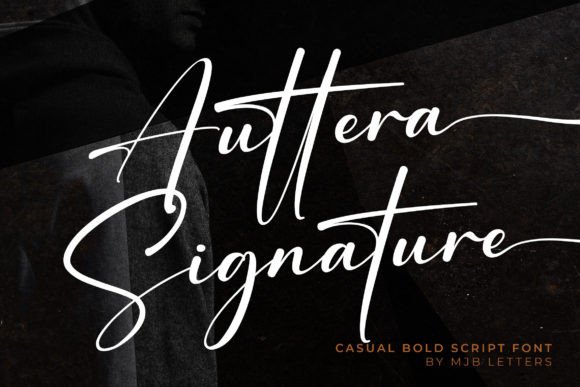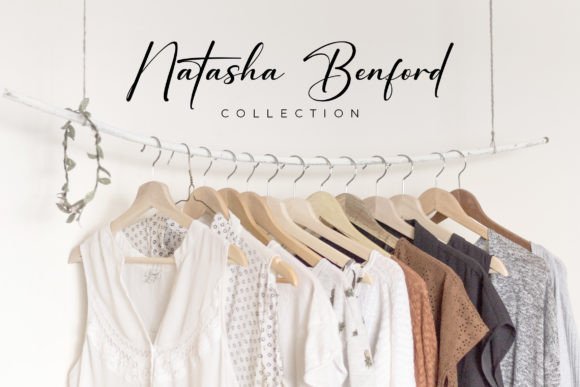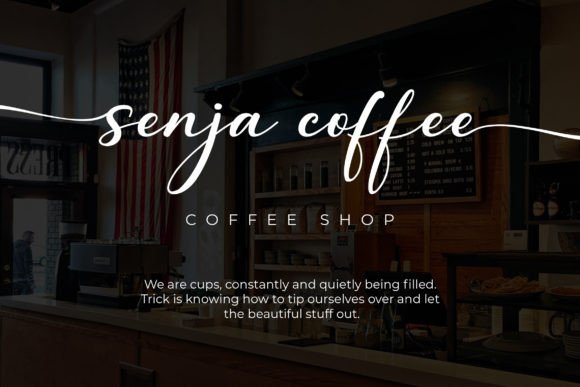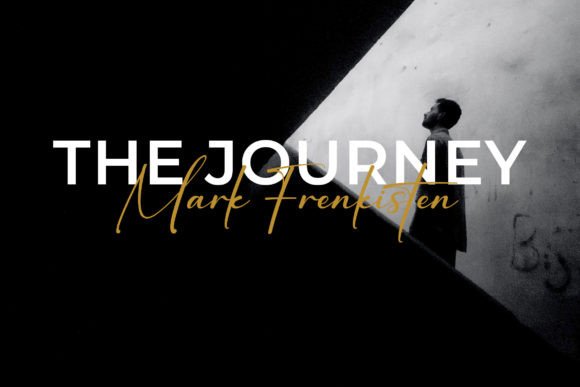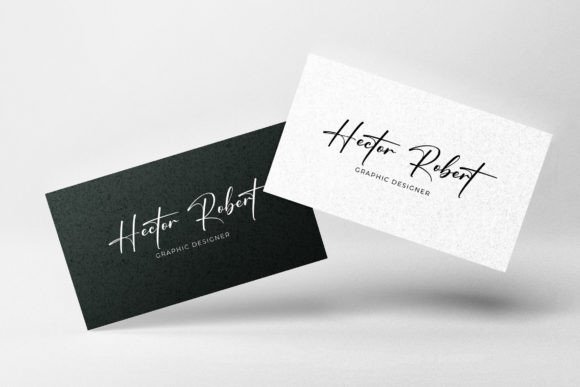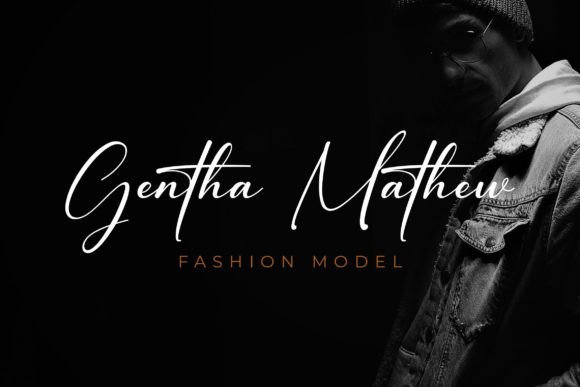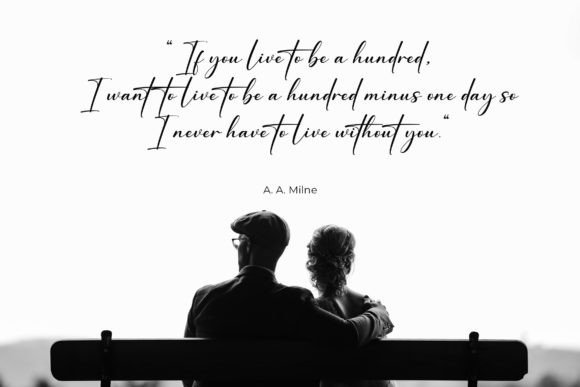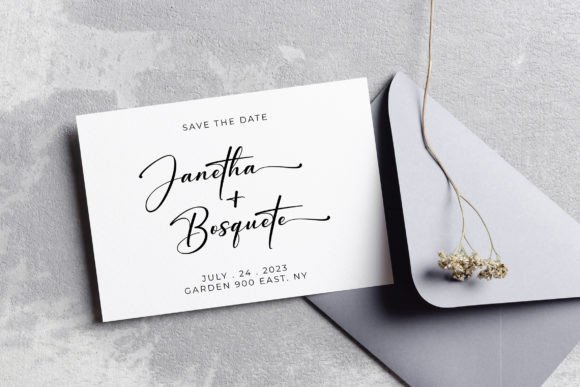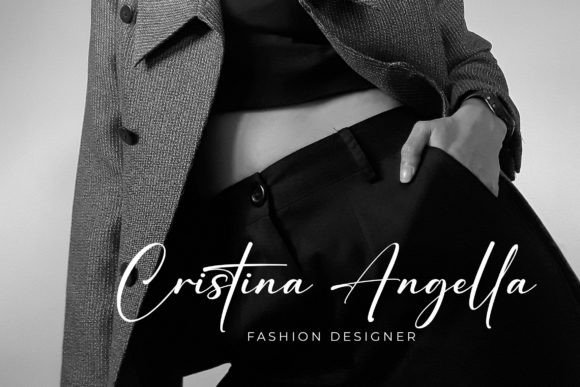
Auttera Signature is a beautiful and refined script font. It has a classy, elegant, and modern look that can be used for logos, branding, invitations, stationery, wedding designs, social media posts, and much more!
Auttera Signature Font